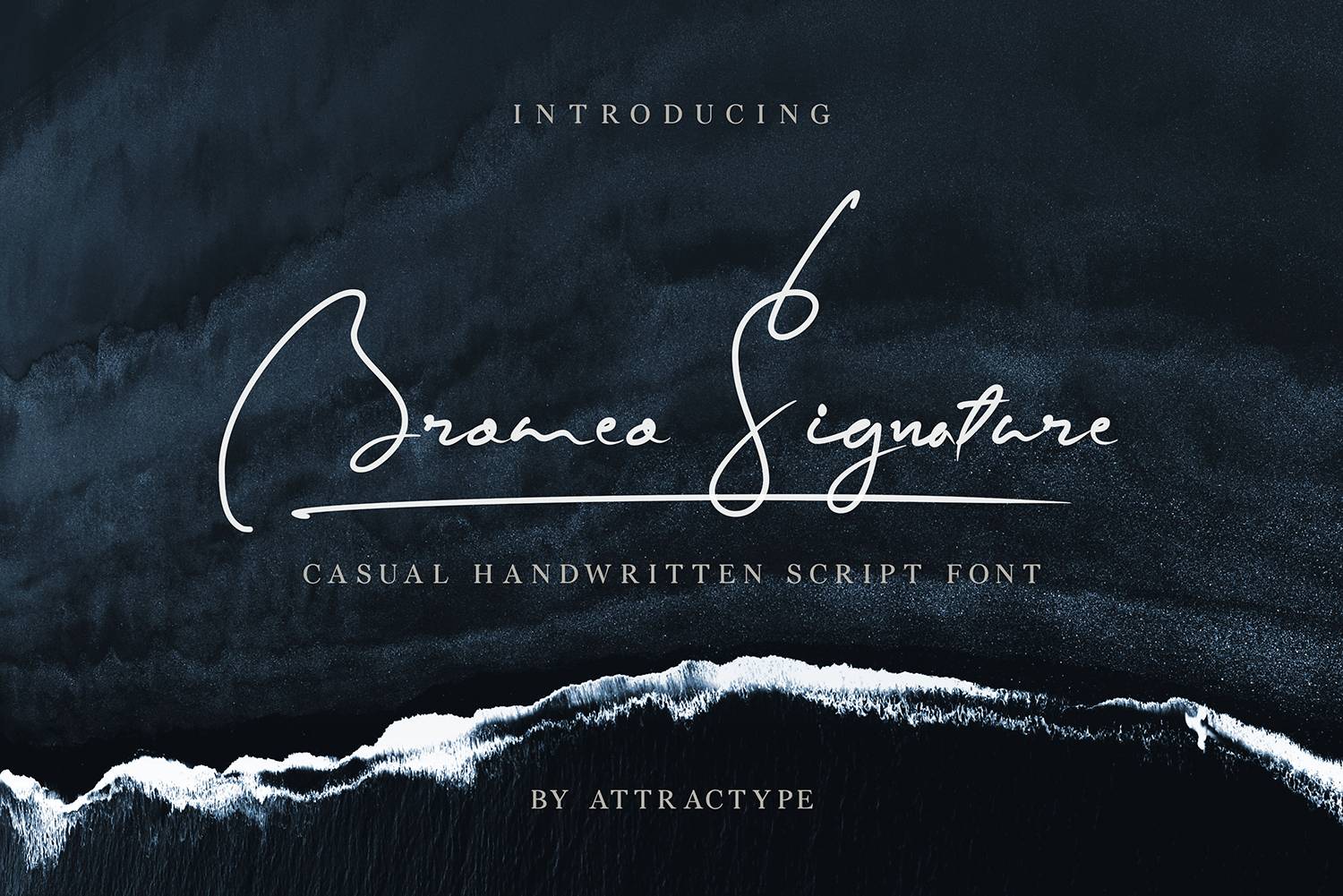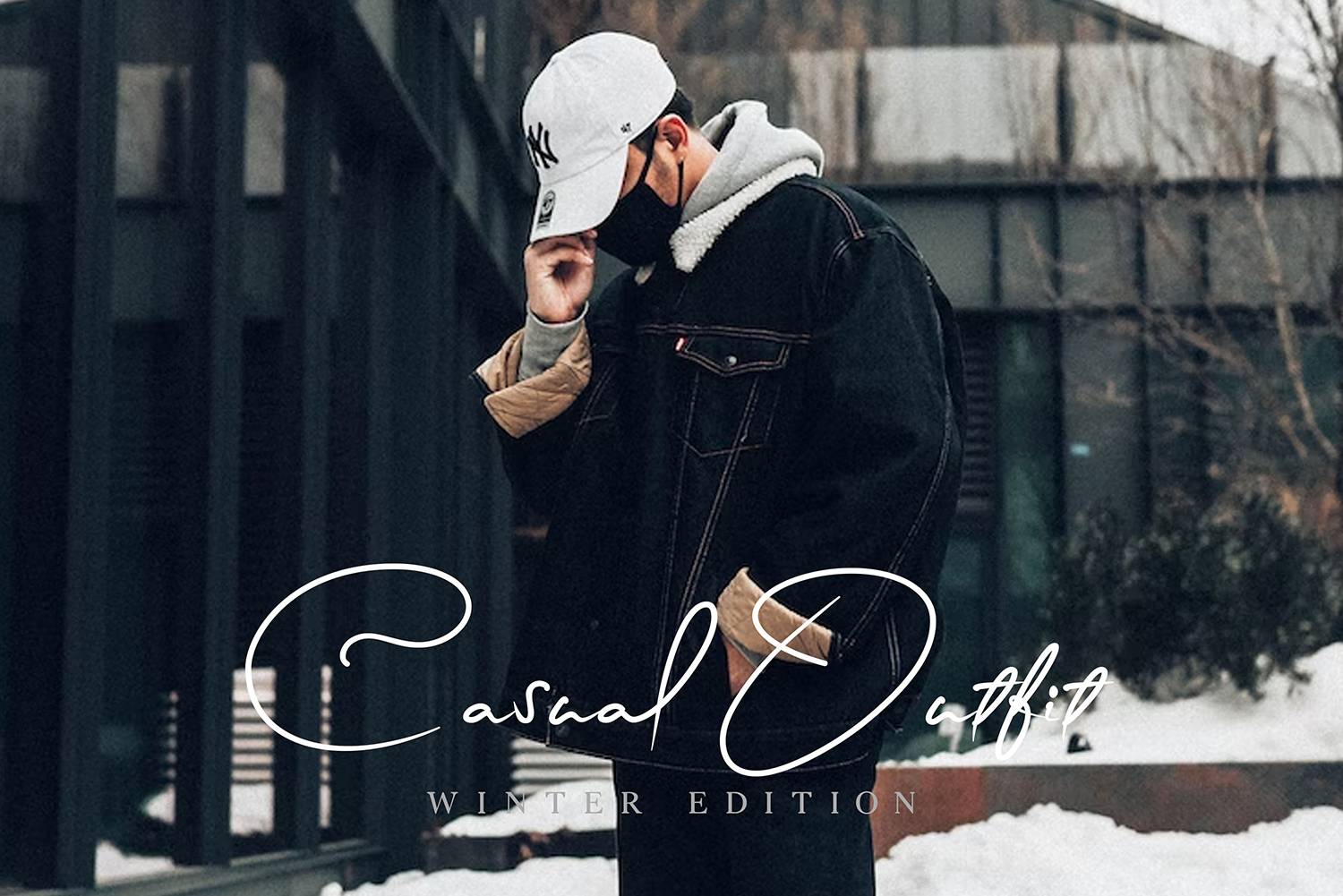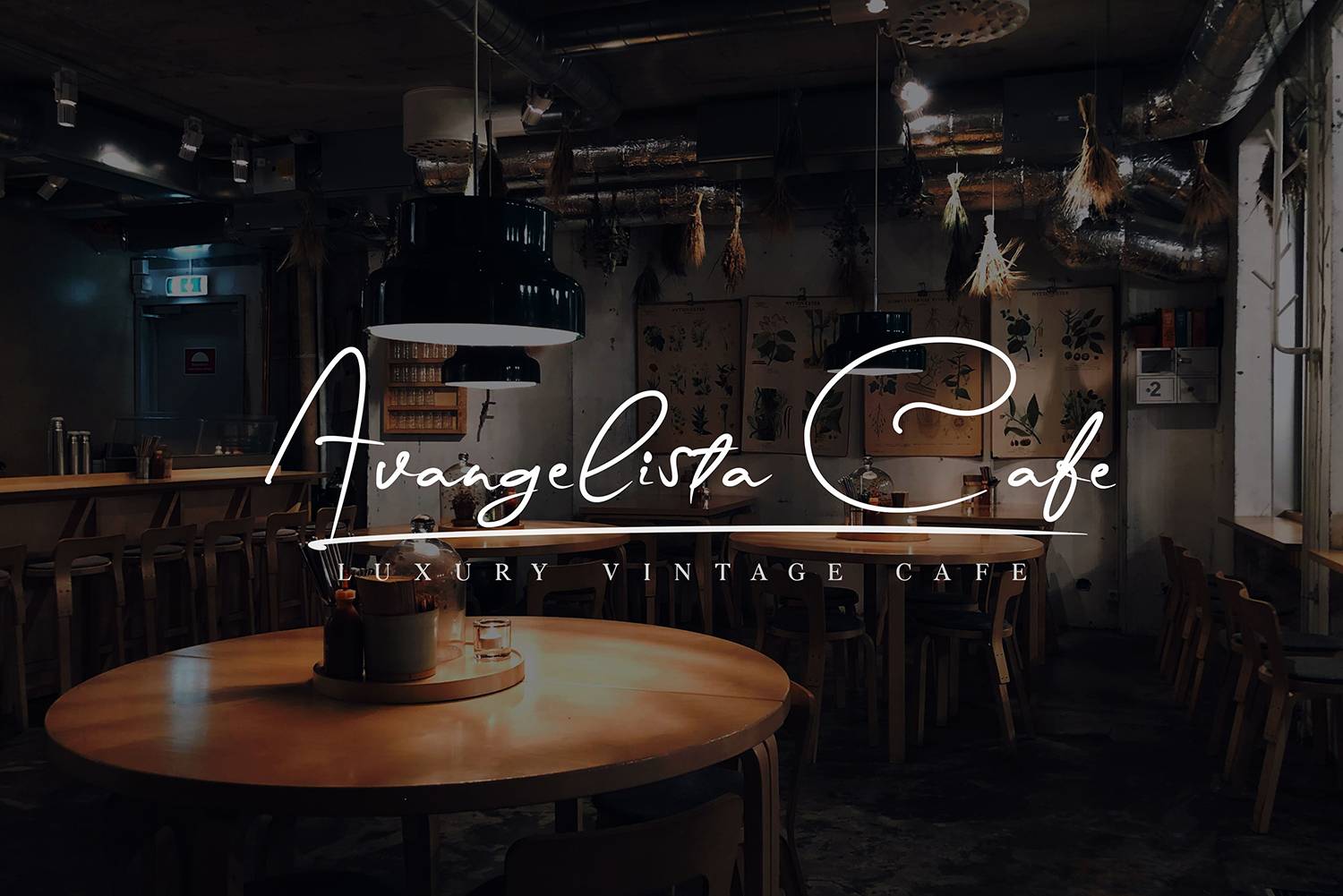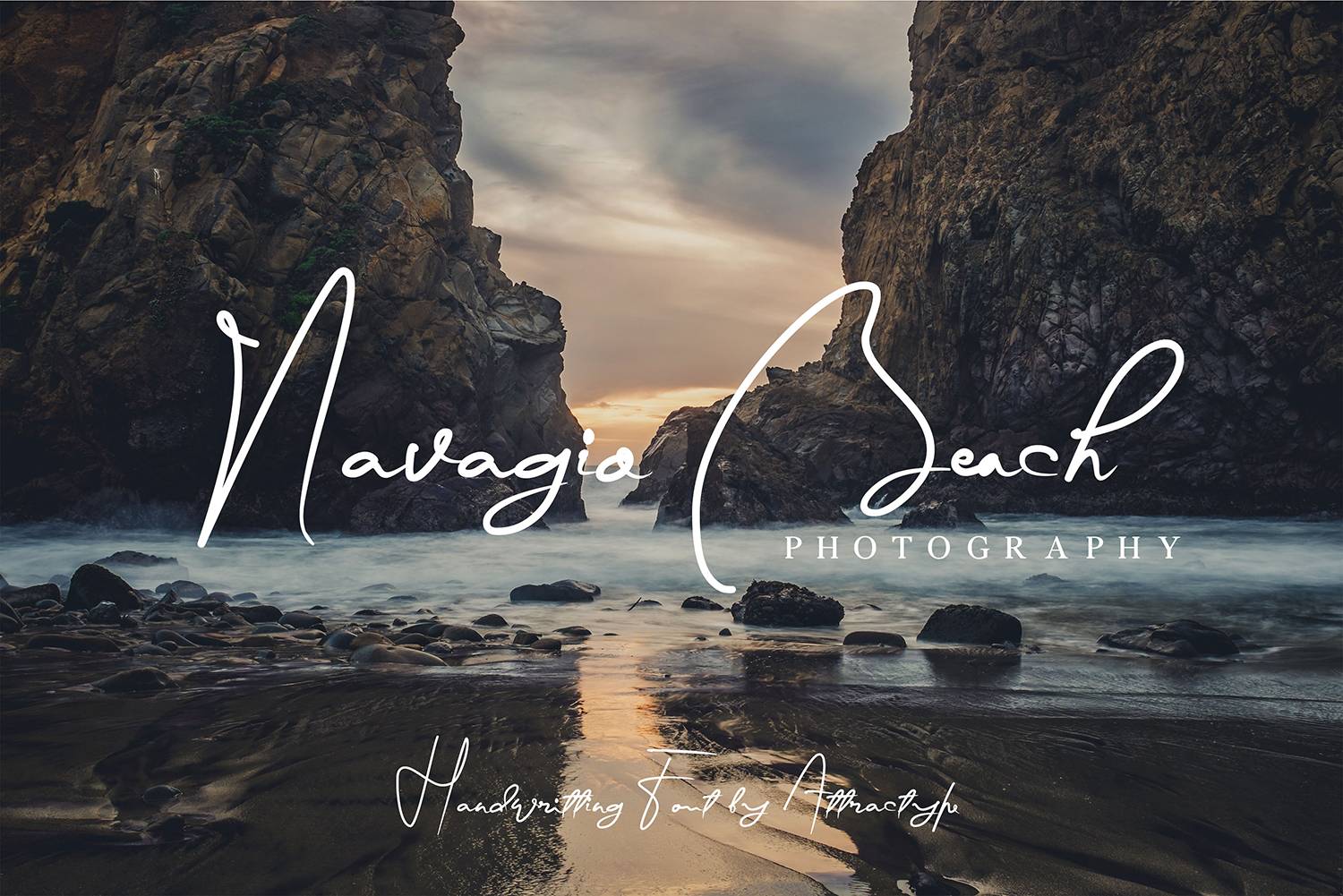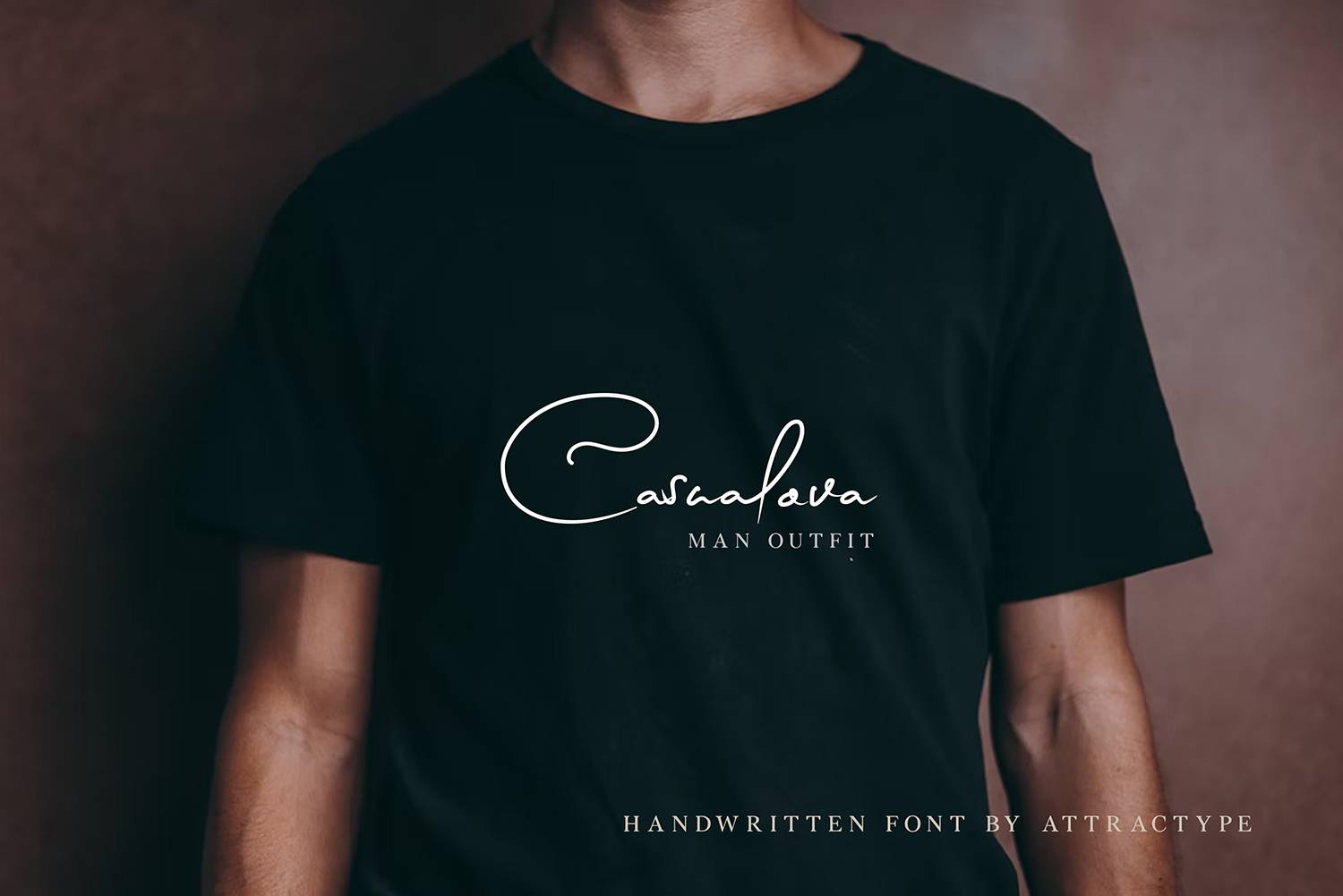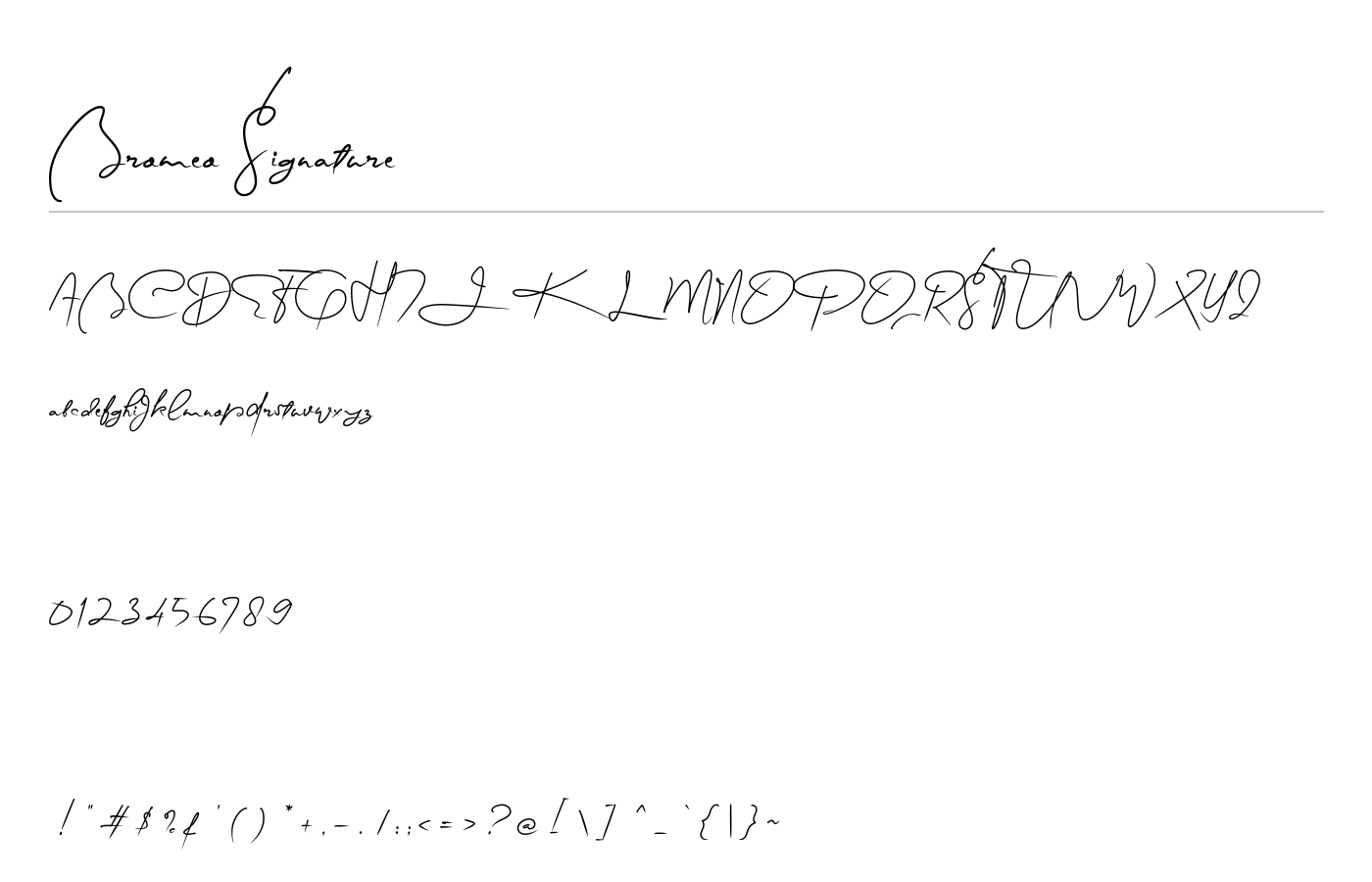
Bromeo Signature Font is a delicate, handwritten script with a loose, airy feel, featuring thin, flowing strokes that mimic elegant personal signatures. Its tall, slender letterforms with irregular connections give it a sophisticated, artistic personality perfect for luxury branding, invitations, and creative projects where a refined yet casual touch is desired. This font shines best in logos and headline uses that benefit from its stylish, unique flair.
Bromeo Signature Font
About Bromeo Signature Font
| Font family | Bromeo Signature Font |
| Designer | Saefulloh |